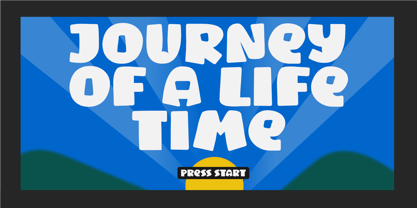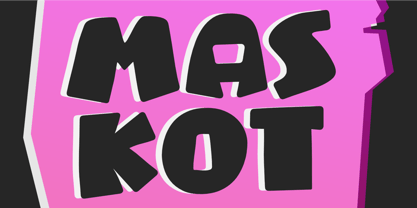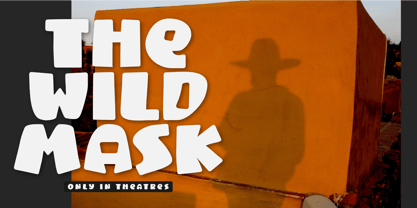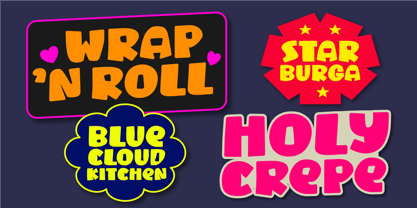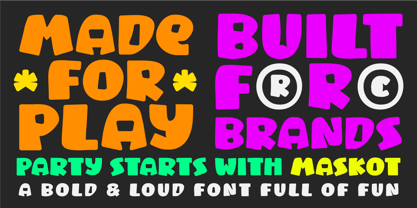
Maskot
A família de fontes Maskot foi desenhada por Aldy Sidik e publicada pela Epiclinez. Maskot contém 1 estilos. Saiba mais sobre esta família
Unleash creativity with Maskot, a bold and playful all-caps display font crafted to stand out in any design. Perfect for logos, branding, gaming titles, kids-themed projects, and movie headlines, Maskot brings an energetic, animated style full of personality.
With chunky shapes, dynamic curves, and a fun-loving attitude, Maskot is made to grab attention. Whether you're working on game interfaces, children’s books, YouTube thumbnails, or cartoon logos, this typeface adds a splash of bold creativity to any project.
Maskot is perfect for creatives, illustrators, and designers looking to add a touch of fun, boldness, and charm to their visuals. If you’re building a brand with character and impact, Maskot is the font you need.